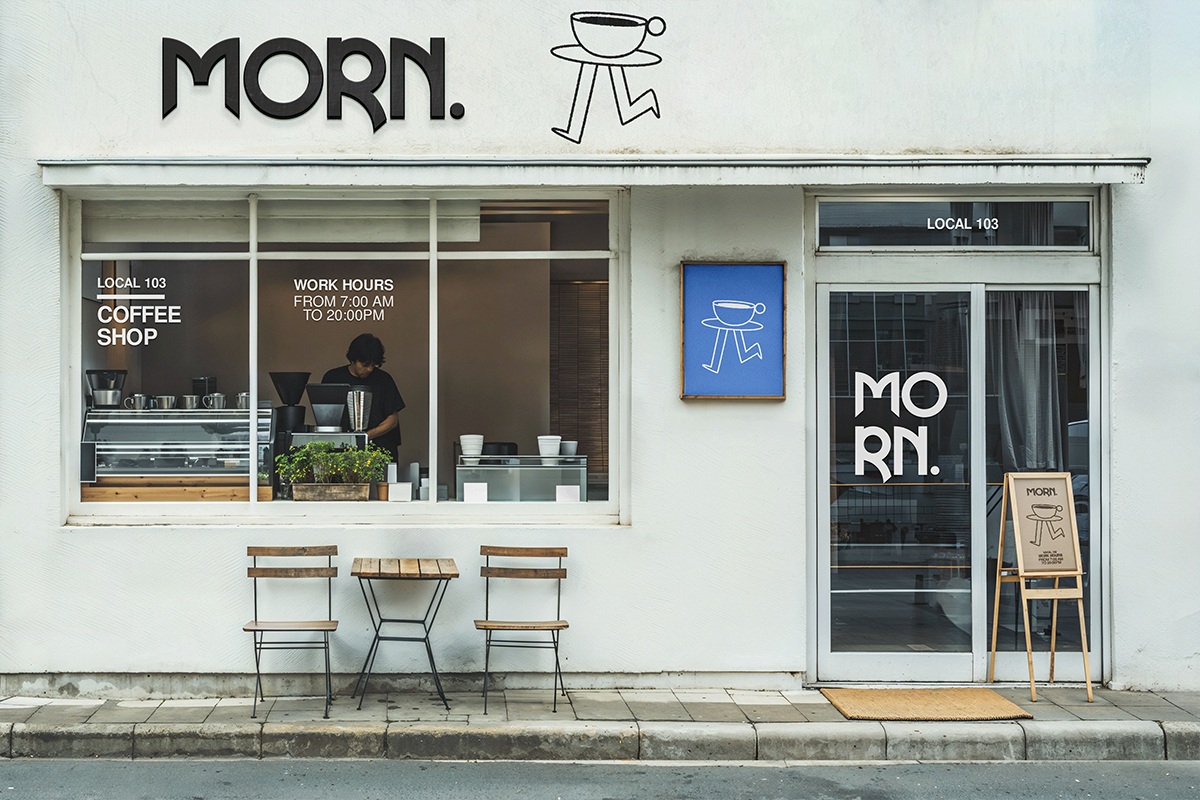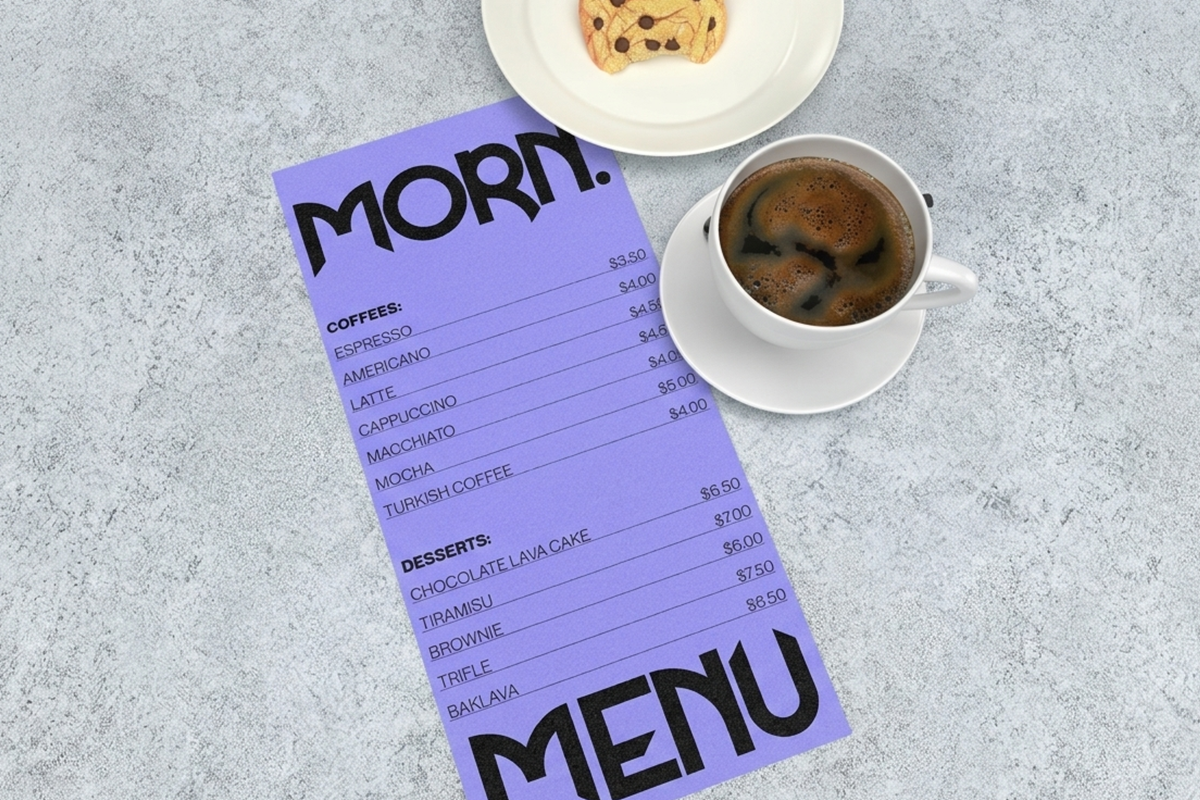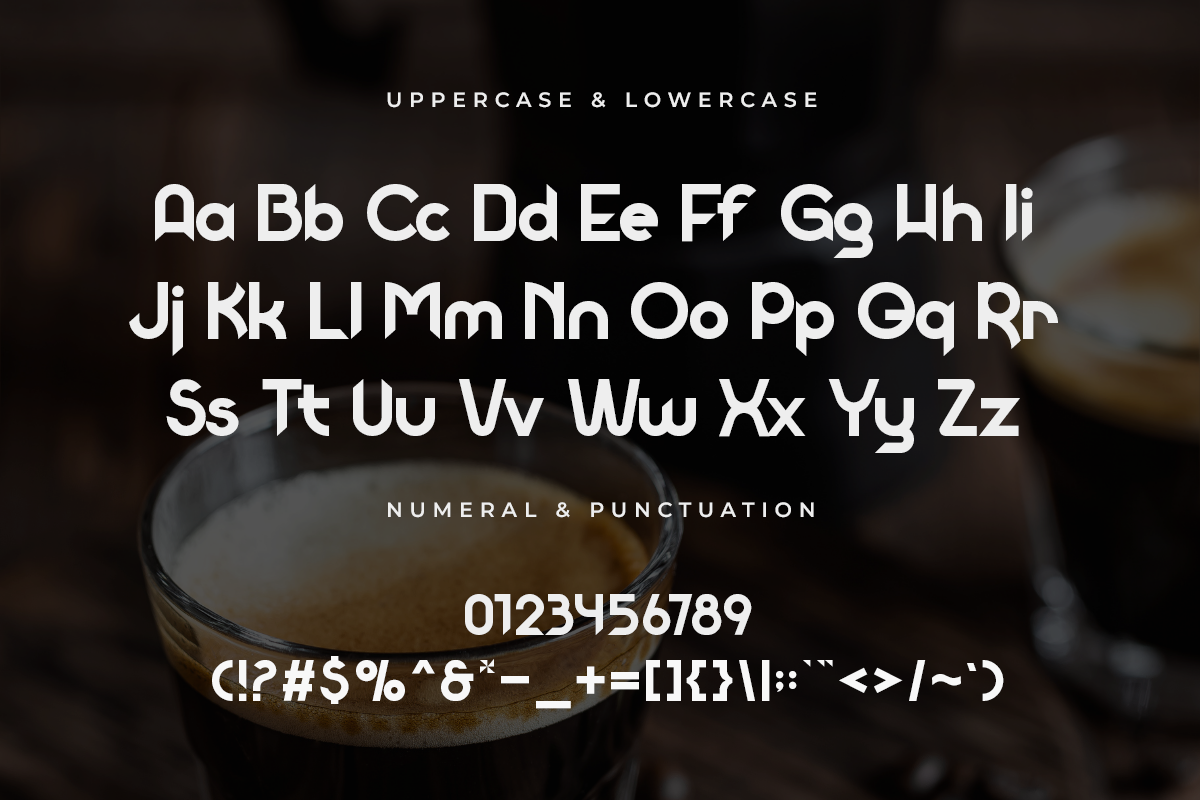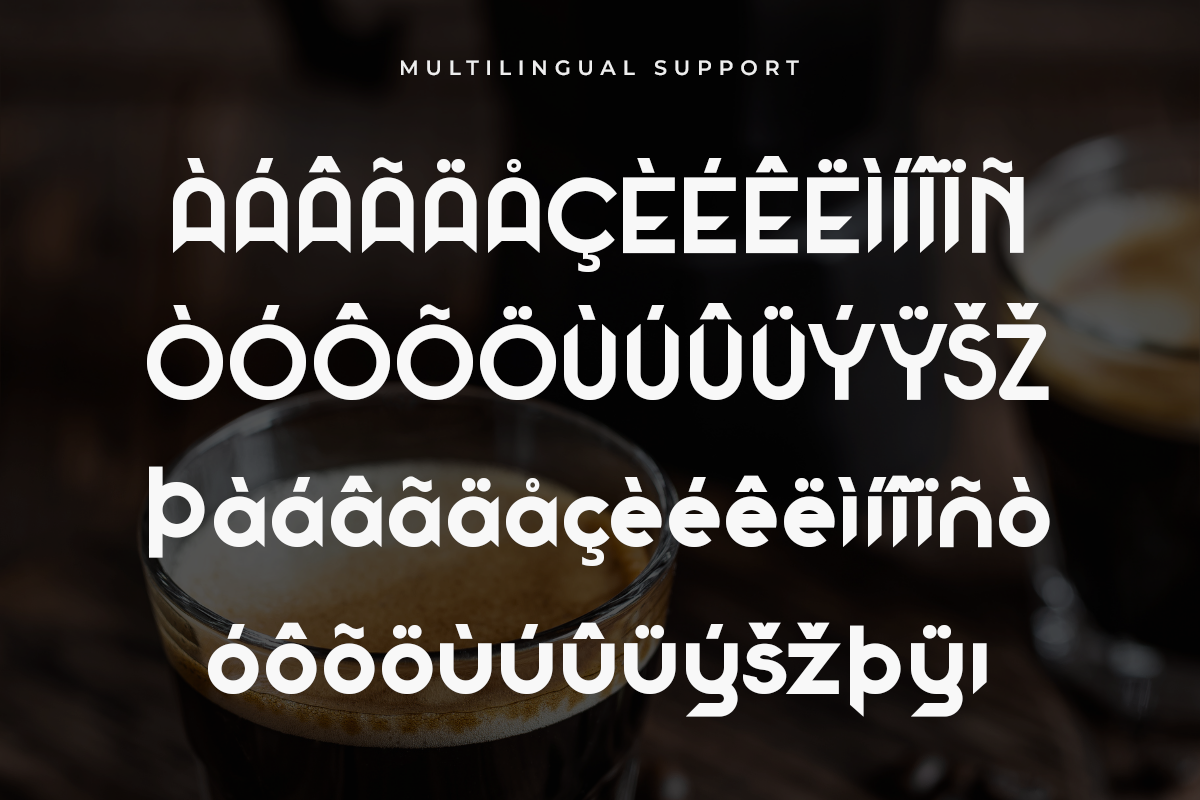
Espressq A Modern Classic Display Font is a bold modern display font designed to make a strong and memorable statement. Inspired by contemporary branding, coffee culture, and premium lifestyle aesthetics, Espressq A Modern Classic Display Font combines powerful geometric forms with elegant curves to create a typeface that feels confident, stylish, and instantly recognizable.
Its distinctive letterforms are crafted to command attention while maintaining excellent readability, making it an ideal choice for logos, headlines, packaging, signage, and brand identities that need a bold visual presence.
Whether you're building a coffee shop brand, restaurant identity, fashion label, creative studio, or modern marketing campaign, Espressq A Modern Classic Display Font delivers a professional and sophisticated look that stands out across both print and digital media.